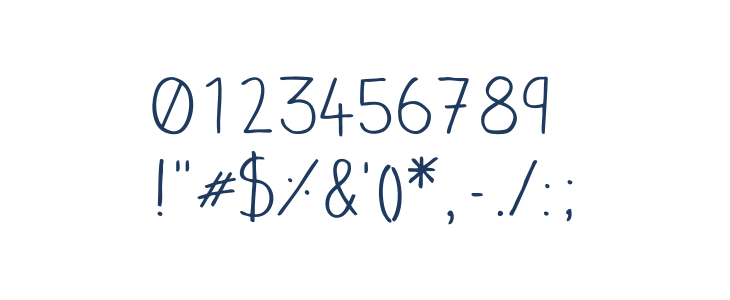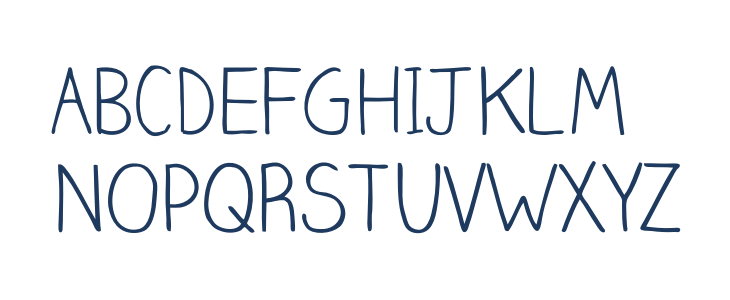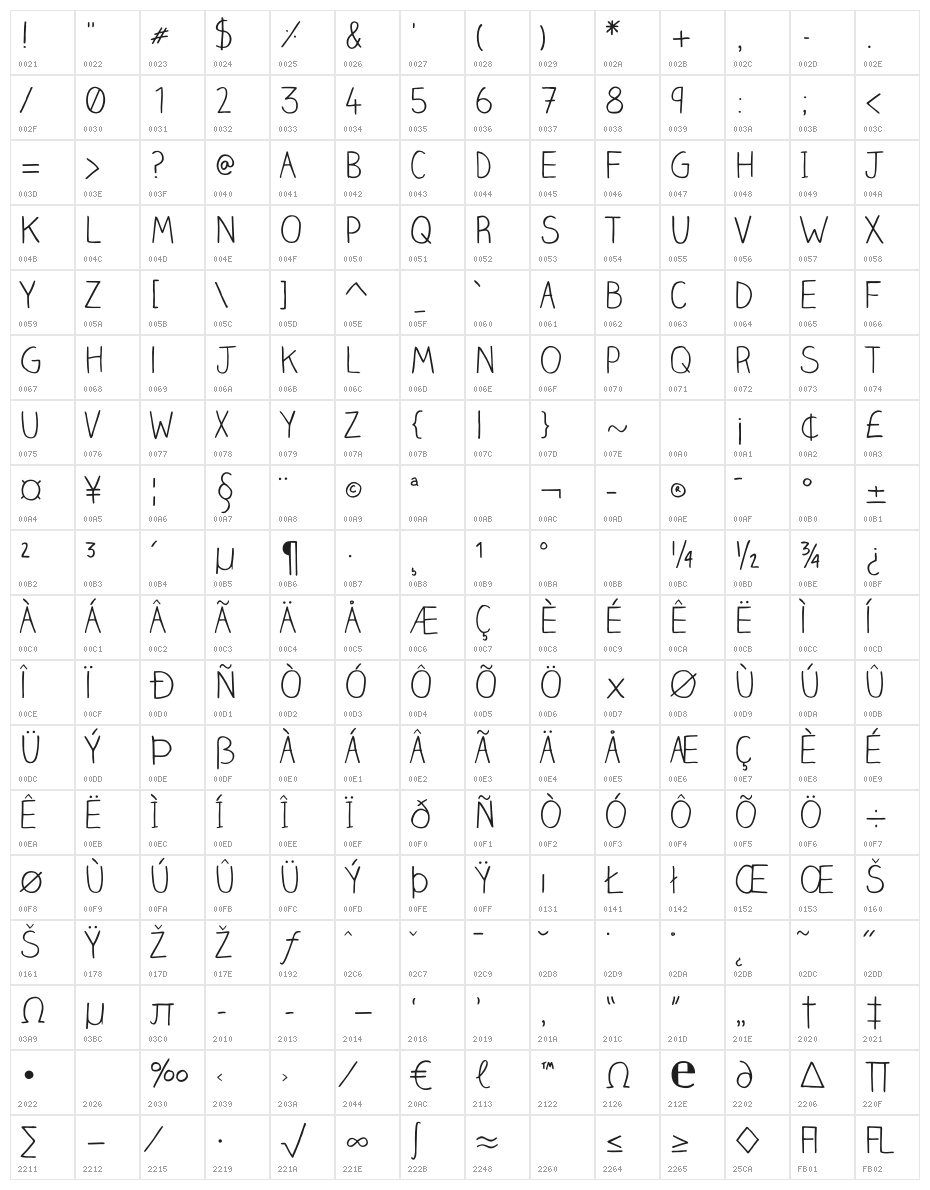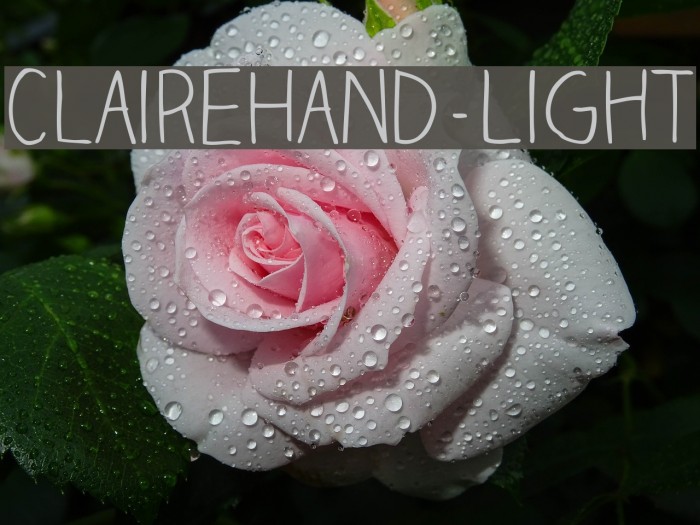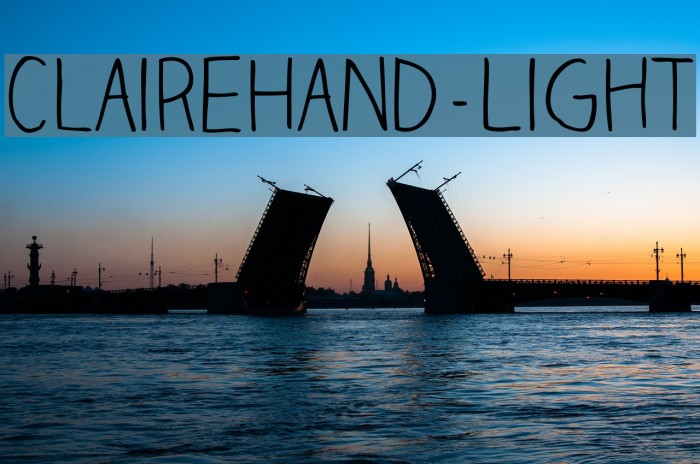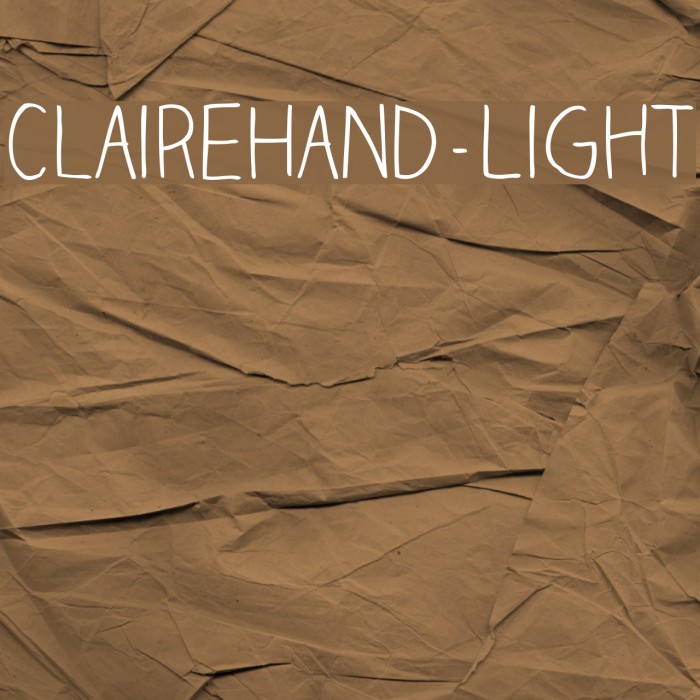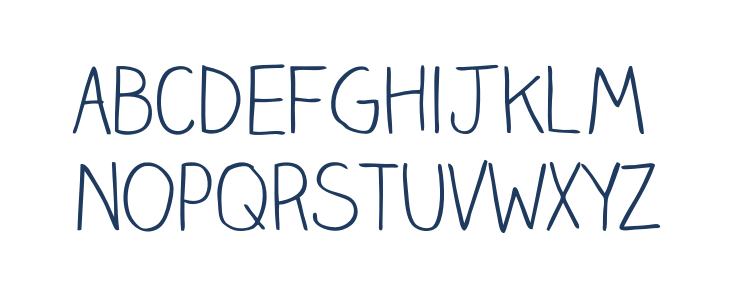
ClaireHand-Light Font
ClaireHand-Light Description
This font features a playful and casual handwritten style, characterized by its smooth, flowing lines and slightly irregular shapes. The letters have a natural, organic feel, with a consistent stroke width that gives it a clean and approachable appearance. The uppercase and lowercase letters are well-balanced, maintaining readability while adding a personal touch. The numerals and special characters are designed to complement the overall style, ensuring versatility across various applications. Its informal yet legible design makes it suitable for projects that require a friendly and inviting tone.
| Proposed Projects | Ideal for greeting cards, invitations, personal branding, and social media graphics. |